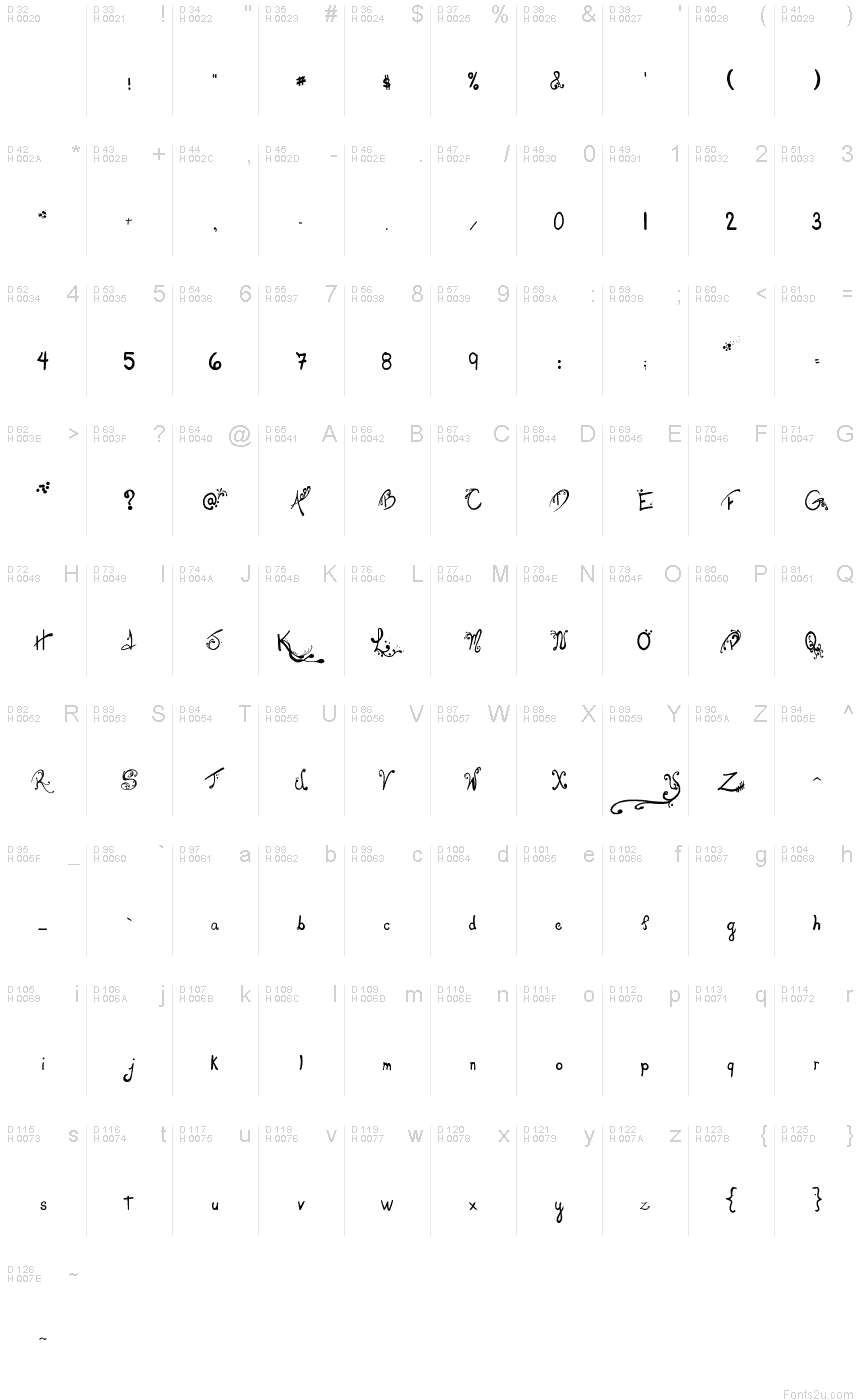
Les oeufs de Cassowary by Jellyka Nerevan is a free whimsical calligraphic script built from lively loops, long sweeping joins, changing stroke widths, and scattered ink dots. Its wandering lines have the loose charm of pen flourishes.
Packaging is a natural setting for this lettering, especially on confectionery labels and children's products, where the curls can mingle with hand-drawn decoration and a handmade, mischievous look. The same playful motion suits festive party invitations and storybook covers for young readers, especially projects tied to fairy-tale subjects, sweet-shop themes, and fanciful illustration.